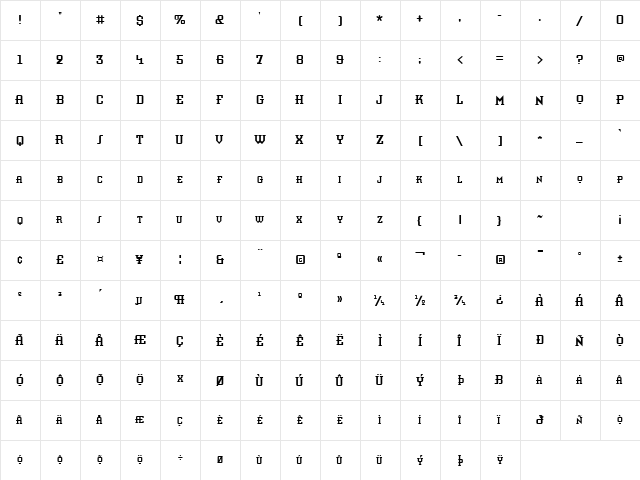
Knomen Condensed Regular
Design Context for Knomen Condensed Typeface
Knomen Condensed takes a measured approach to typography — its balanced proportions and neutral character make it a reliable workhorse for both digital and print work. Its narrow stance lets it pack a punch even in space-constrained designs.